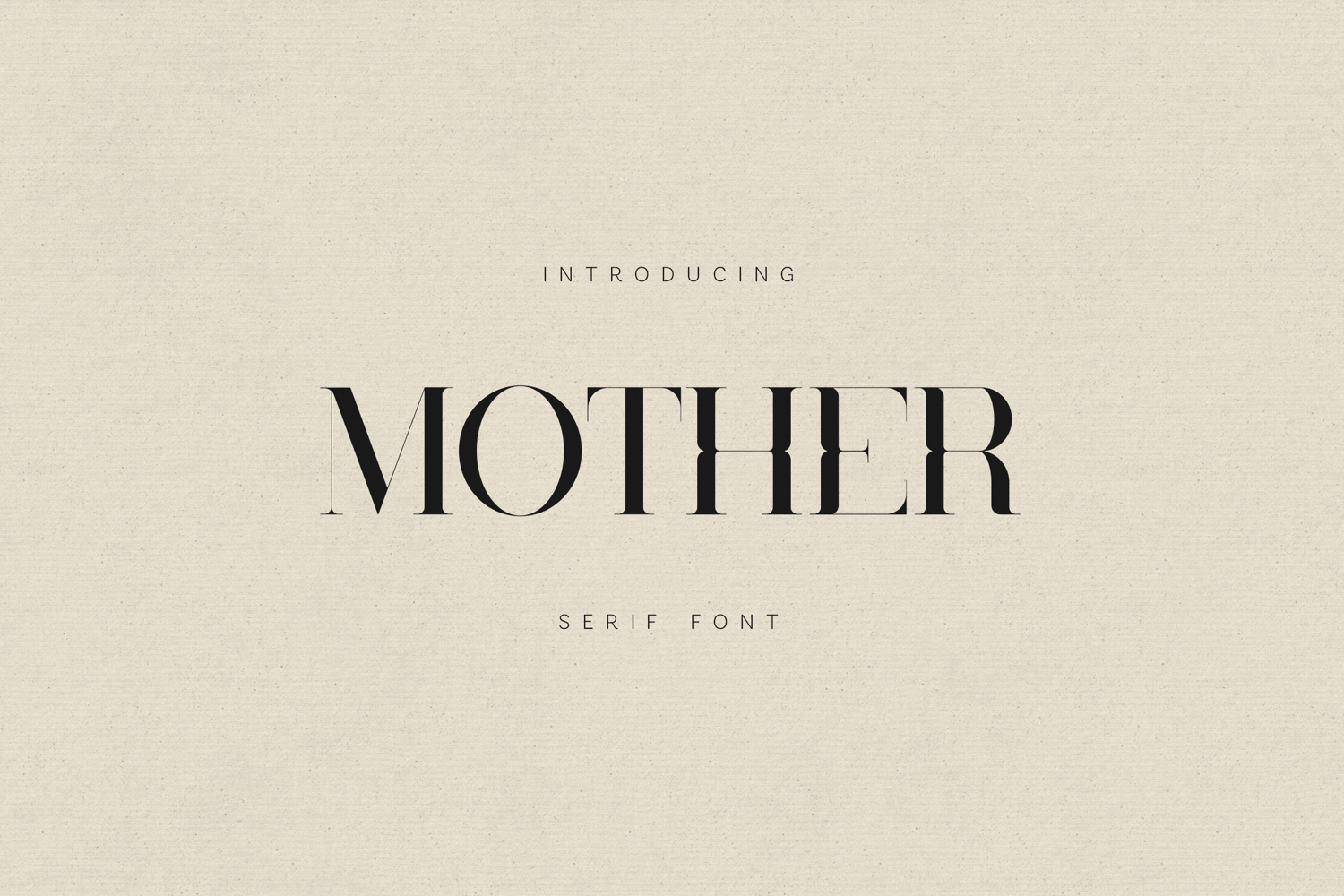
Mother Elegant High-Contrast Serif Font
Mother is a refined high-contrast serif typeface designed for modern editorial and luxury-focused design.
With its sharp transitions between thick and thin strokes, it creates a strong visual rhythm while maintaining a sense of softness and control. The delicate serifs and subtle curves give it a sophisticated voice — confident, but never aggressive.
This typeface balances structure and elegance, making it ideal for typography that needs to feel elevated, intentional, and timeless.
Mother doesn’t follow trends.
It defines presence.
✦ Ideal for:• luxury branding
• fashion/editorial design
• magazine layouts
• premium packaging
• high-end logos
• beauty & cosmetics brands
• creative direction decks
• typography-driven visuals
• Clean kerning & refined spacing
Mother is part of the Loopstate serif system — where contrast creates emotion and typography becomes identity.